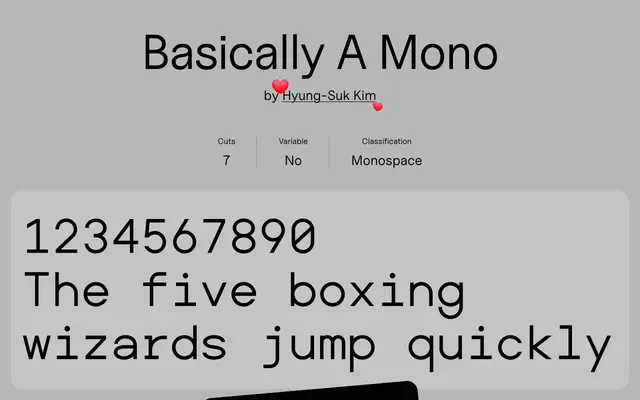
Basically A Mono
A seven-cut monospaced typeface by Hyung-Suk Kim, available free under the SIL Open Font License for commercial and personal use.
Designed by Hyung-Suk Kim, this fixed-width family offers seven cuts suited to coding, editorial and interface contexts. It carries an SIL Open Font License 1.1, permitting commercial use, modification and redistribution with conditions. No variable font axis is available, but the range of cuts provides sufficient stylistic variation for most use cases.
Explicitly classified as Monospace by the foundry; a fixed-width typeface with 7 cuts and no variable axis.